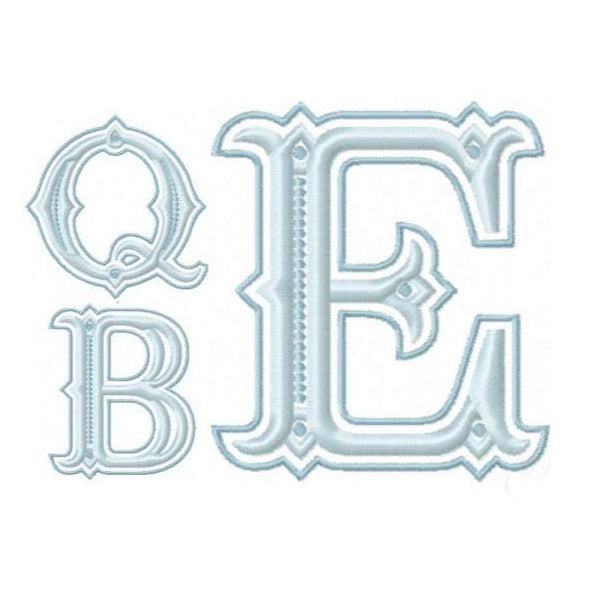
Queen Bess Embroidery Font Package 4x4 - Unique Design
Unlock your creative potential with the Queen Bess Embroidery Font Package. This versatile two-color embroidery font features uppercase letters A-Z, allowing for stunning designs in various project types.
Included in this package are multiple sizes: 1", 1.5", 2", 2.5", 3", and 3.5". Please note that the 1" size does not include contrasting dots in the middle of letter openings, while all other sizes do include these embellishments.